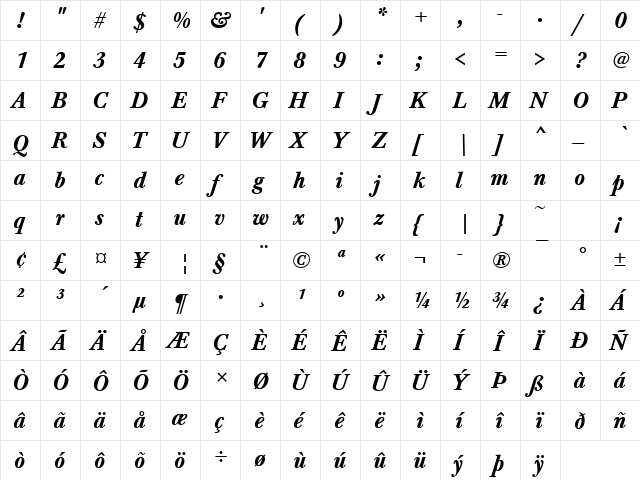
Baskerville Becker Med Italic
Design Context for Baskerville Becker Med Typeface
Baskerville Becker Med is a composed and adaptable typeface that performs quietly and consistently across a wide range of design contexts. The slanted form adds forward momentum and visual energy.
Pro Tip: Use Baskerville Becker Med for emphasis, pull quotes, and subheadings where its slanted energy can add rhythm to the layout.